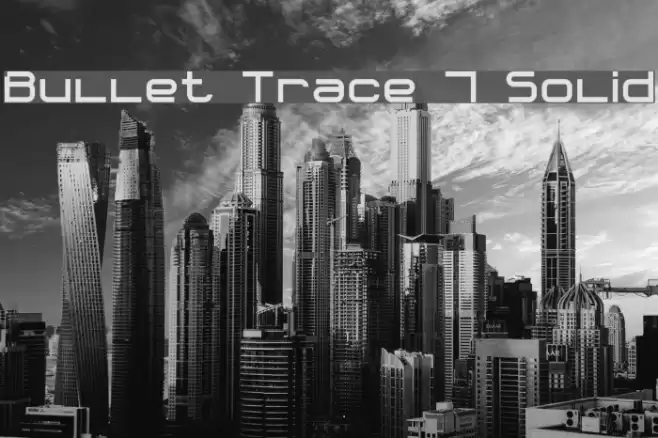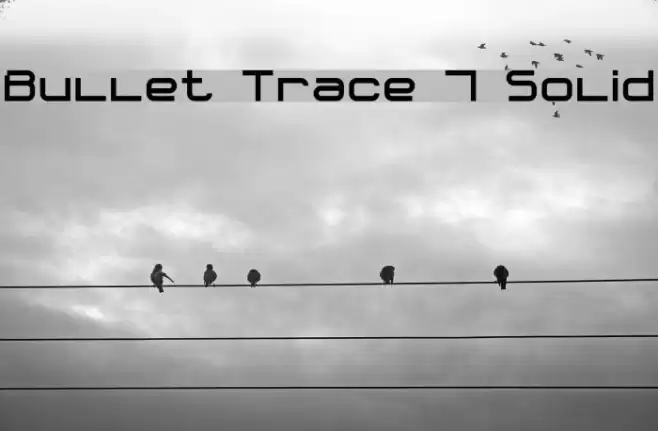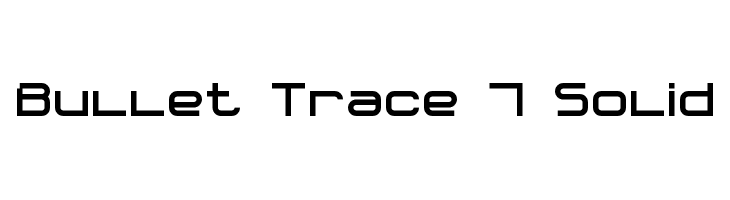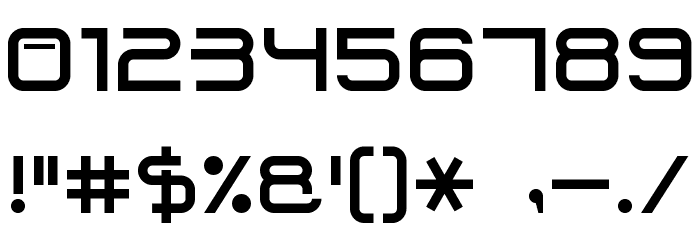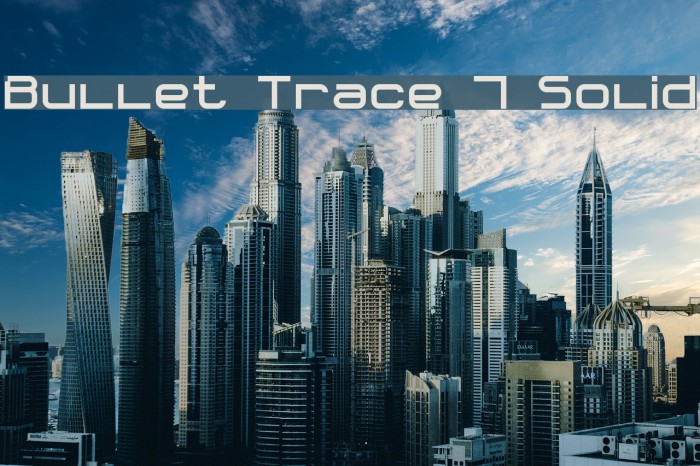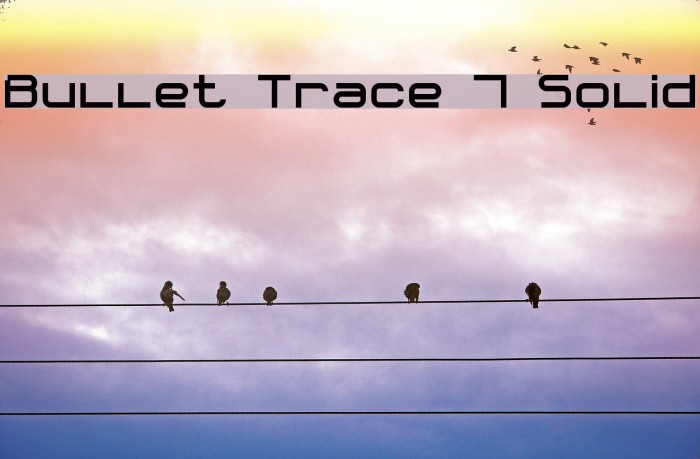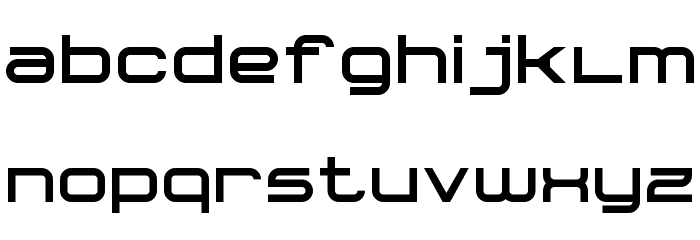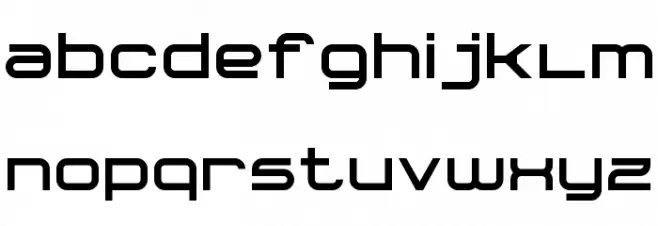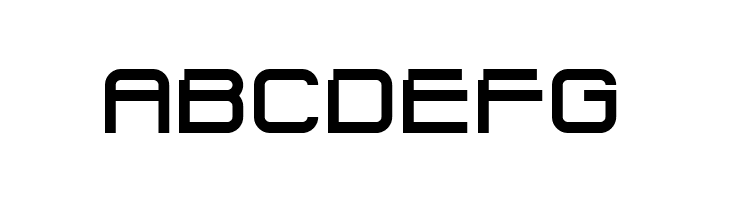
Bullet Trace 7 Solid Font
Bullet Trace 7 Solid Description
This font features a modern, geometric design with a clean and structured appearance. The characters are composed of straight lines and sharp angles, giving it a futuristic and technical feel. The uppercase and lowercase letters maintain a consistent height, contributing to a uniform look. The numerals and special characters follow the same design principles, ensuring a cohesive appearance across all glyphs. The font's simplicity and clarity make it suitable for digital interfaces and technology-related projects. Its distinct style is both eye-catching and easy to read, making it versatile for various design applications.
A modern, geometric font with a clean and structured appearance from Futuristic fonts.
- Proposed Projects: Ideal for technology branding, digital interfaces, and futuristic design projects.
- Use Case: Logos, Headlines, Digital Interfaces